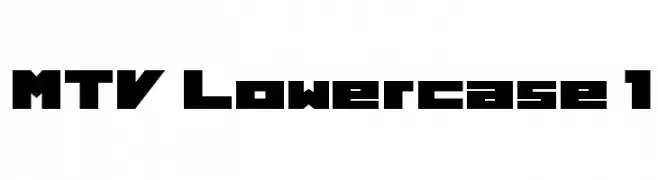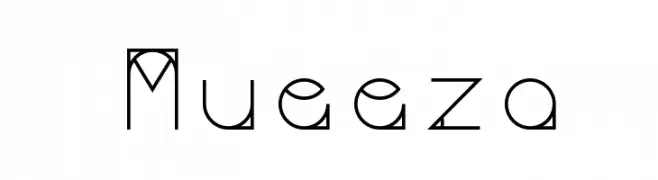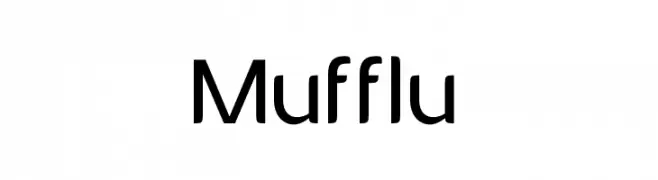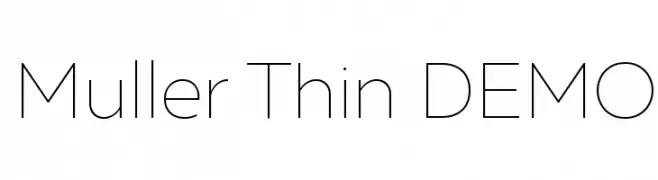
A modern geometric font with thin lines and angular shapes.
A modern sans-serif font with smooth curves and a slightly rounded appearance.
An elegant script font with ornate swirls and loops, perfect for artistic projects.
An elegant and ornate script font with flowing, decorative letterforms.
A bold, modern sans-serif font with clean lines and strong presence.
A modern, thin sans-serif font with a clean and minimalist design.
A bold, modern sans-serif font with geometric lines and strong visual impact.